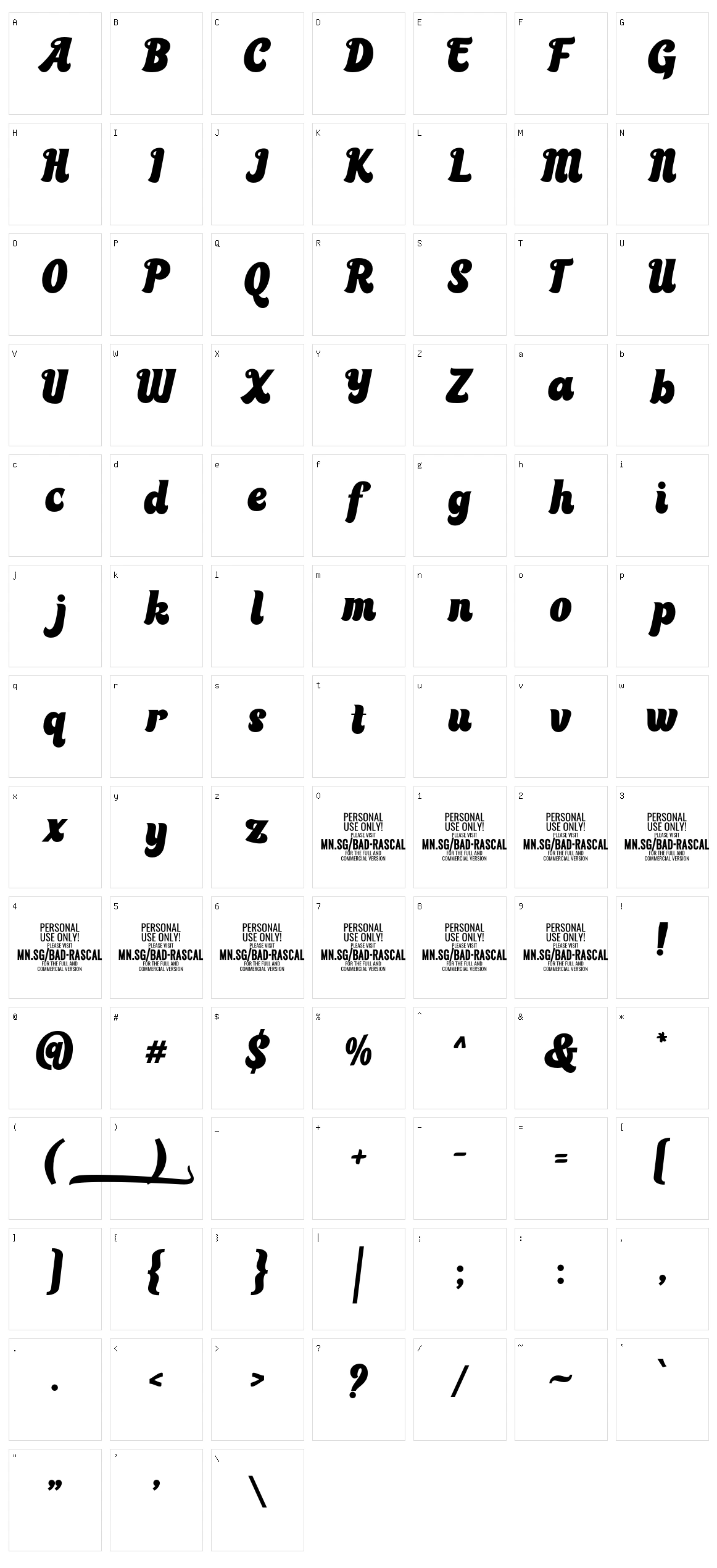
Bad Rascal is a script typeface.
This flowing brush font in a fat style gives any project the attention it deserves.
Use it for a bold logotype or headline to give your work that extra-bold look.
Use underscore _ to make a swash underline.
Example: Powers_
Use multiple underscores to make a swashes of different lengths.
Example: Baddest_______
The Bad Rascal family consists of the fonts Regular and Italic.
The font is built with advanced OpenType functionality and has a guaranteed top-notch quality, containing stylistic and contextual alternates, ligatures and more features; all to give you full control and customizability.
It has extensive lingual support, covering all Latin-based languages, from Northern Europe to South Africa, from America to South-East Asia.
It contains all characters and symbols you'll ever need, including all punctuation and numbers.